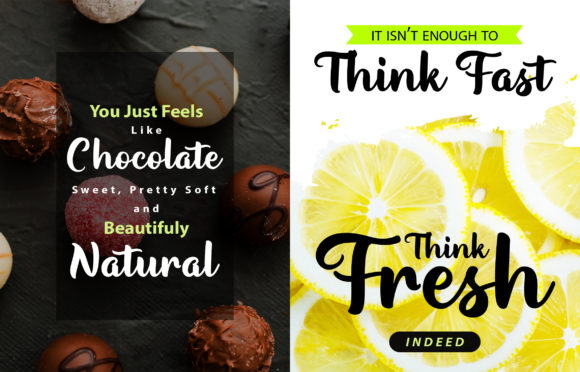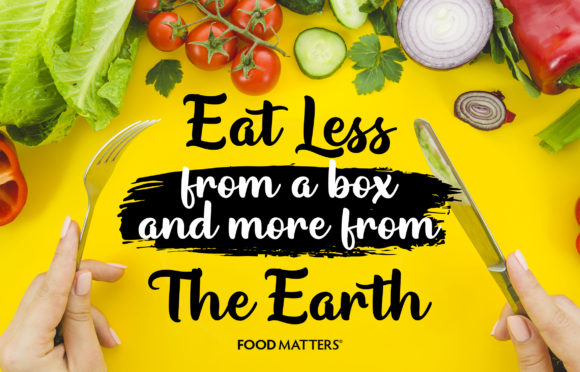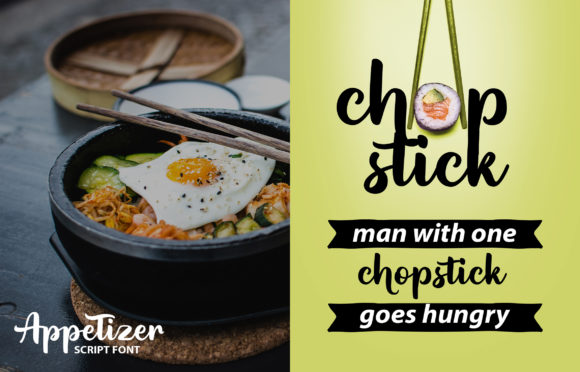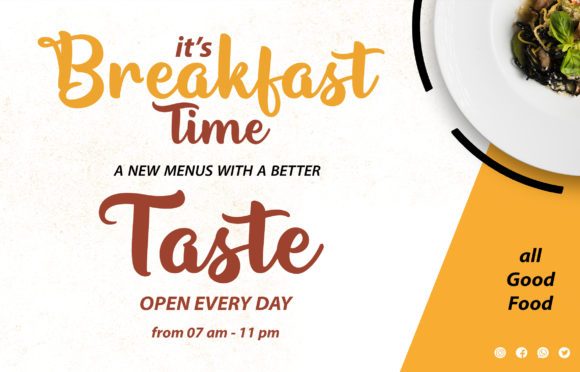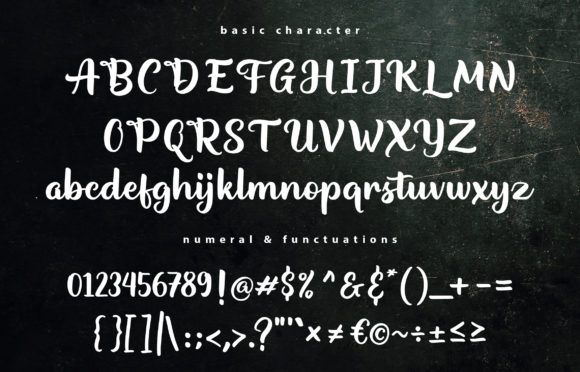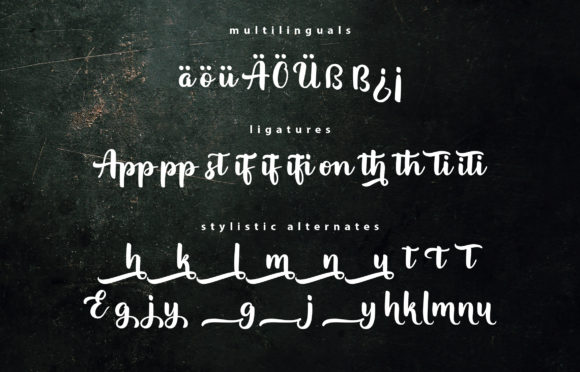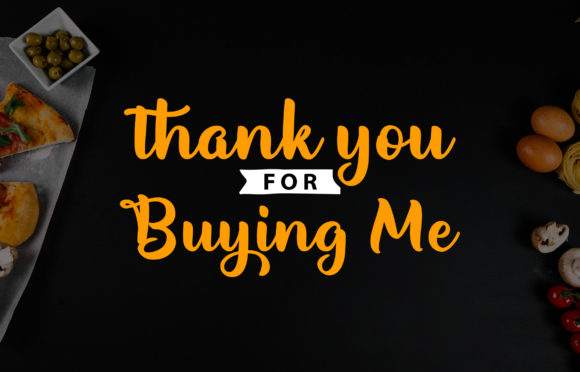
Appetizer Font
About Appetizer Font
Appetizer is a distinct, elegant script that blends traditional influences into a contemporary aesthetic. Its well balanced Latin details contain distinctive contrasts. Use Appetizer to achieve an exquisite, yet subtle look and maximum versatility.